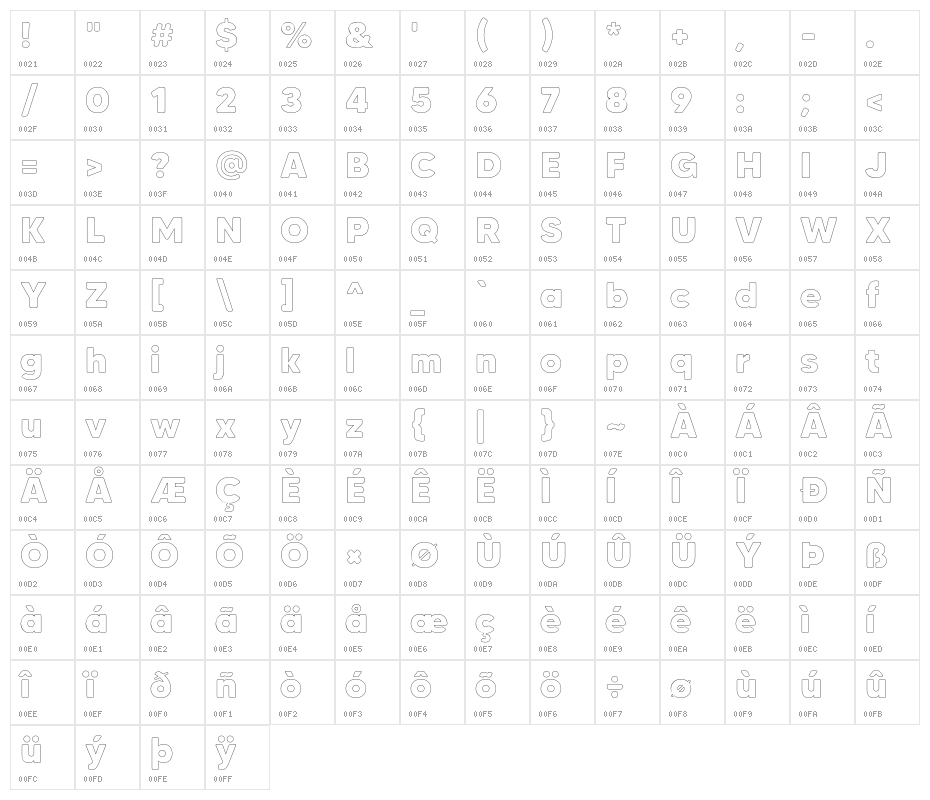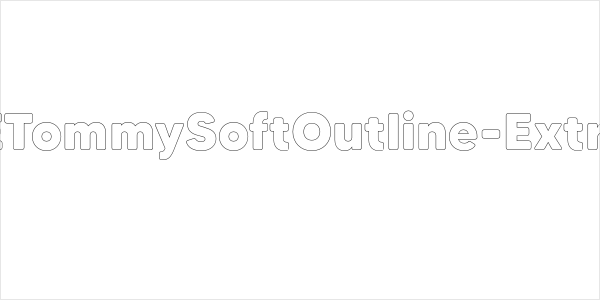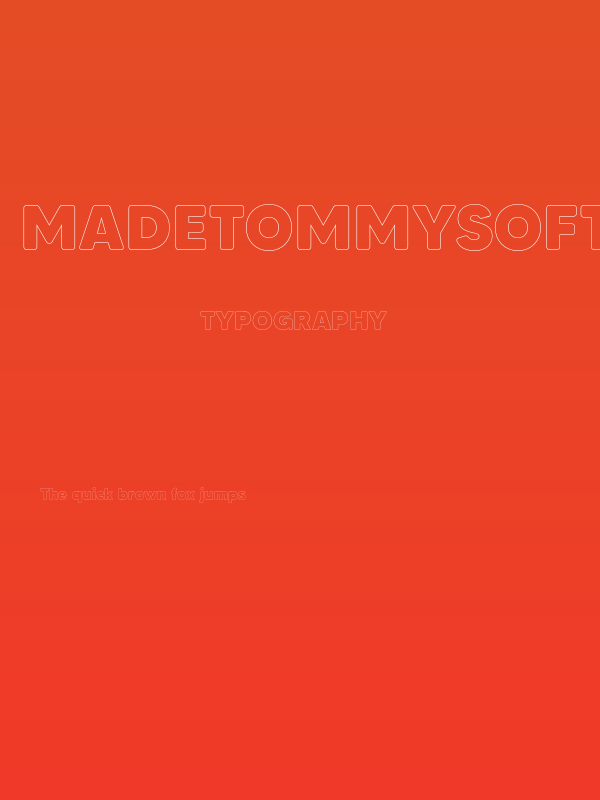
MADETommySoftOutline-ExtraBold Font
This font features a bold, outlined style with a modern and clean appearance. The characters are well-proportioned with a consistent stroke width, giving it a structured yet approachable look. The uppercase and lowercase letters maintain a uniform design, making it versatile for various applications. The numerals and special characters are equally bold and clear, ensuring readability. Its outline nature adds a unique touch, making it stand out in both digital and print media. The font's simplicity and clarity make it suitable for attention-grabbing headlines and titles.
| Proposed Projects | Ideal for headlines, posters, branding, and digital media where a bold statement is needed. |